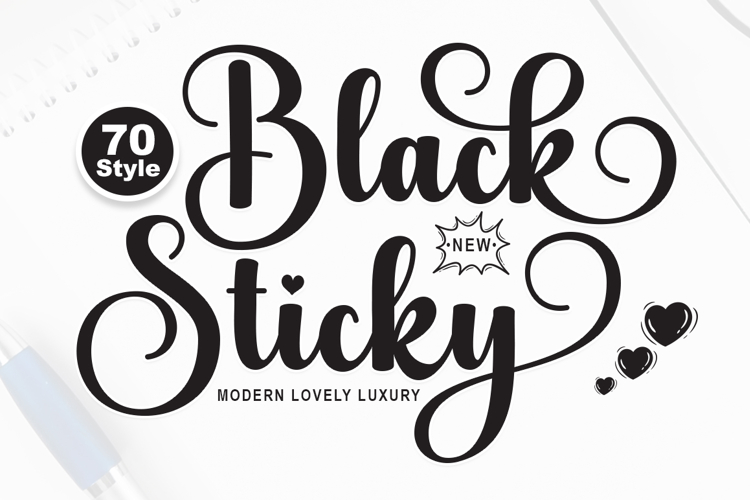
Black Sticky - Family Font In 70 Styles
Introducing Black Sticky Typeface – a bold, fashion-forward font family featuring 70 striking styles, designed to bring a confident, modern edge to your creative work.
With its sleek structure, refined curves, and subtle glamor, Black Sticky blends timeless sophistication with contemporary versatility. Each style is thoughtfully crafted to deliver high-impact visuals, featuring graceful letterforms, smooth ligatures, and stylish alternates for ultimate design flexibility.
Perfect for everything from luxury branding and fashion labels to editorial layouts, packaging, restaurant menus, and event invitations, Black Sticky effortlessly elevates any design with a polished, upscale feel.
• 70 Unique Styles – including Regular, Italic, Bold, Outline, Wrap, Frosted, Smart Corner, and more.
• Full Character Set – Uppercase & Lowercase
• Alternates & Ligatures – for creative custom looks